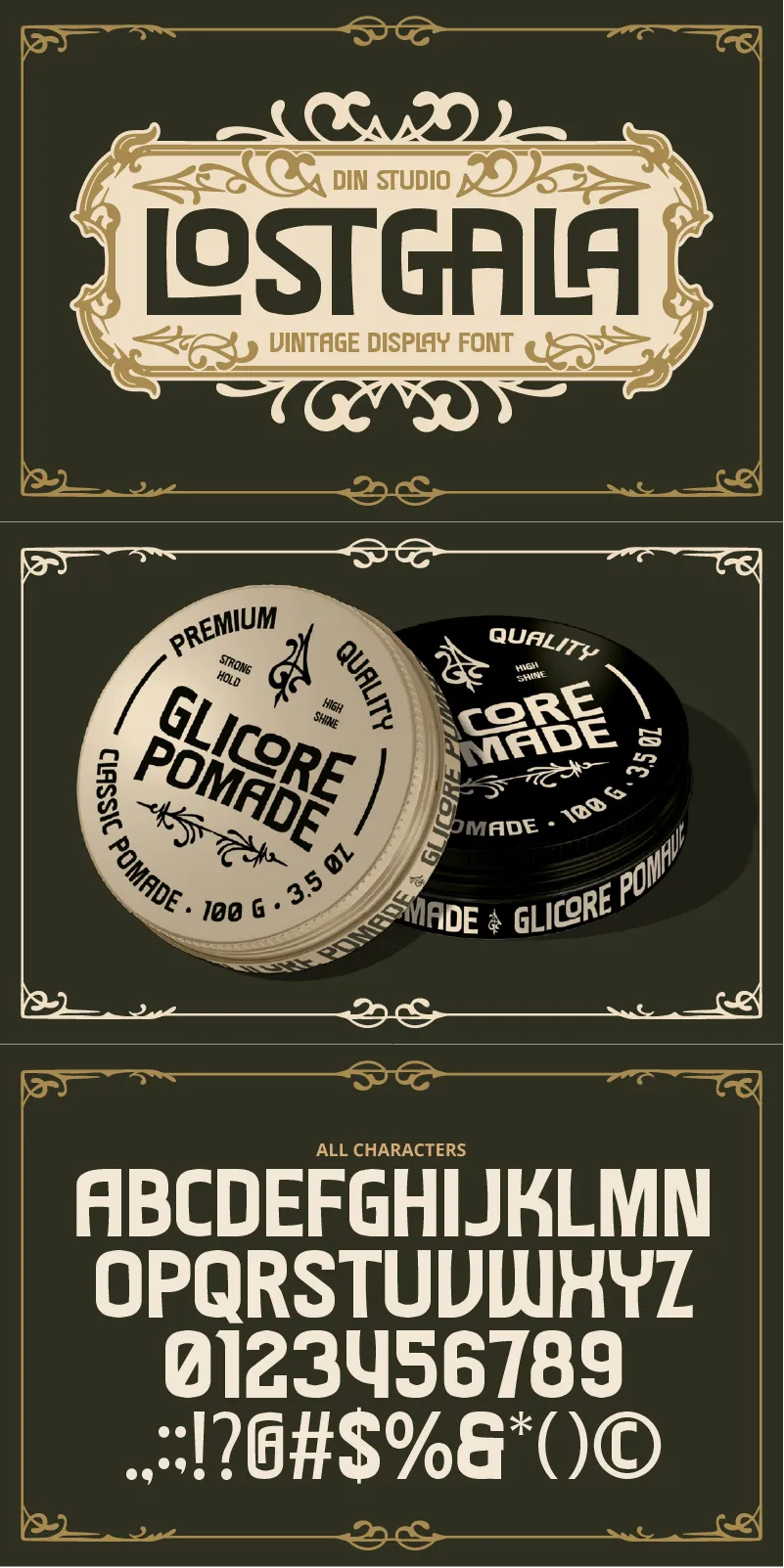
Lostgala Font
About Lostgala
Introducing Lostgala, a bold display font that brings vintage flair with a modern punch. Designed in all caps with a thick weight, Lostgala features clean, consistent letters that create a powerful and polished look. The square-shaped letterforms with sharp corners add a sense of strength and precision, perfect for designs that need to stand out. Lostgala delivers a striking vintage aesthetic with a sharp, contemporary twist. This font gives ornament sets as extra. In addition, enjoy the features here.
Lostgala fits in headlines, logos, posters, branding materials, packaging, print media, editorial layouts, and many more designs. Find out more ways to use this font by taking a look at the font preview.